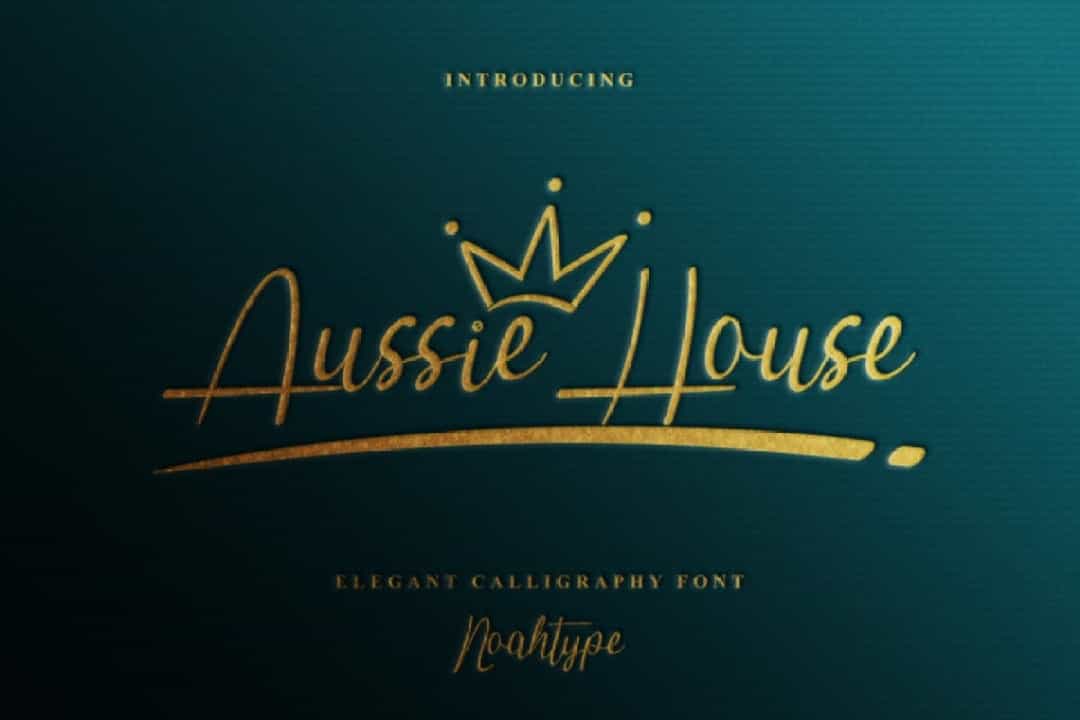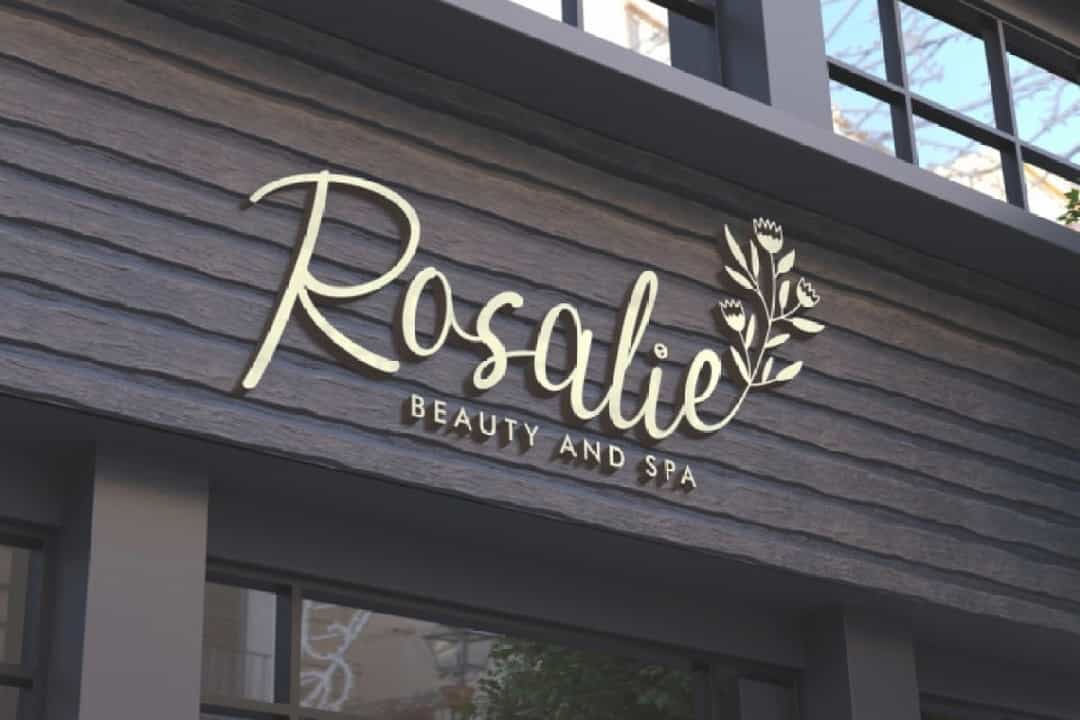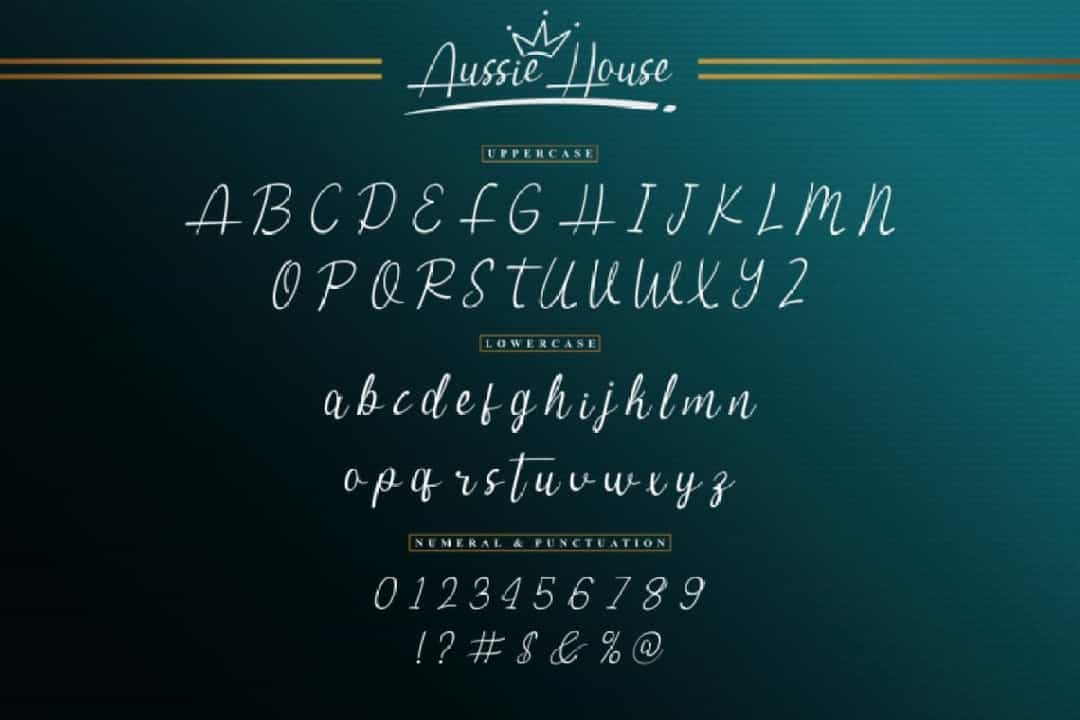
This is the best calligraphy font ever with fabulous characters, stunning Swash and very beautiful alternates. Ideal for invitations, luxury branding and promotional jingles, song titles among other uses, its design replicates handwritten style to allow the best adjustment on each character.